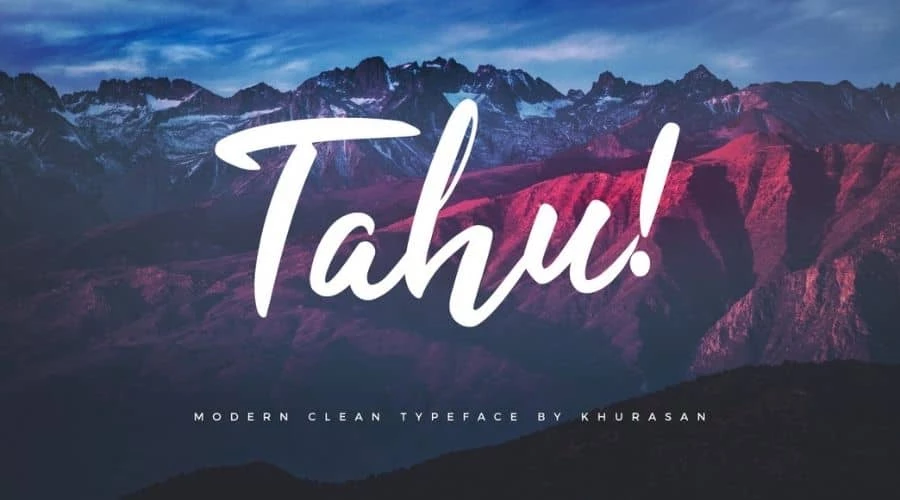
Tahu is a font that you can use it everywhere. From regular typing to design creation, this font is suitable to use in any perspective. Designers love to use this font more than others. A number of designers refer to and prefer this font for the purpose not only for their comfort but also for the stunning look. Besides designing you can use this font in the section which is given below.
- Designing: For huge designing purposes, Such as Business cards, Headlines, and brochure layouts, Tahu is at the top of everyone’s favorite list.
- Logos: You can design your logos with it.
- Websites: I have seen various websites use this font.
- Magazines: The font has the outlook to place on top of magazines.